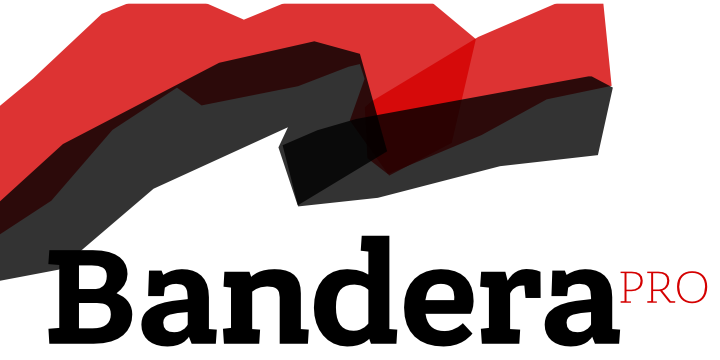
This square serif typeface is a real workhorse. It is a modern tool for text design: extremely legible, pan-european multilingual (Latin, Greek and Cyrillic), well shaped. Bandera Pro has six weights with original italics, alternatives, small capitals and three sets of digits. It catches attention in headlines of posters and magazines or makes reading comfortable in plain texts.
Bandera Pro shares main proportions with sans serif Osnova Pro typefamily so ideally can pair it.
Bandera is Spanish for ‘flag’. And Bandera is a symbol of Ukrainian fighting for freedom for many years.